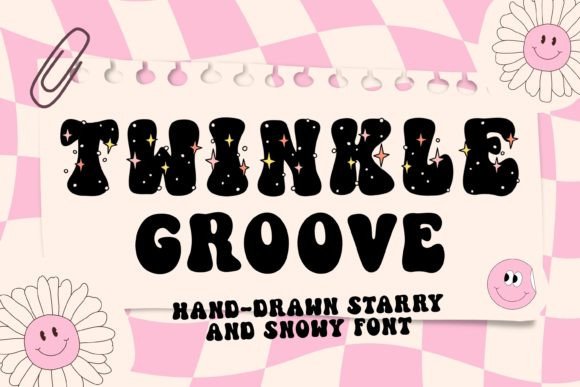
Introducing Twinkle Groove Font: The Perfect Font for a Christmas Card!
Looking to add a touch of festive magic to your projects? Look no further than Twinkle Groove Font, the ultimate decorative font designed by the talented Jyllyco. With its playful and retro hand-drawn style, this font is sure to captivate your audience and bring a joyful spirit to any design.
What sets Twinkle Groove Font apart from the rest is its enchanting star sparkles and snow decorations. Each letter twinkles with a magical charm, making it the ideal choice for creating stunning Christmas cards that will impress your loved ones. Spread the holiday cheer like never before with this font that truly embodies the essence of the season.
But that's not all – Twinkle Groove Font offers endless possibilities for all your creative ventures. Whether you're crafting blog posts, designing captivating logos, or establishing a unique brand identity, this font will elevate your work to new heights. Its versatility knows no bounds, making it perfect for digital planners, invitations, greeting cards, photo albums, and so much more.
Imagine the joy on your loved ones' faces when they receive a personalized Christmas card featuring Twinkle Groove Font. The whimsical and festive aura it exudes will instantly transport them into a world of holiday enchantment. Your designs will stand out from the crowd, leaving a lasting impression on anyone who lays eyes on them.
Let your creativity shine with Twinkle Groove Font. Its carefully crafted characters will add a touch of nostalgia and warmth to your projects, evoking a sense of joy and wonder. With its captivating style, this font will transform even the simplest designs into works of art that resonate with your audience.